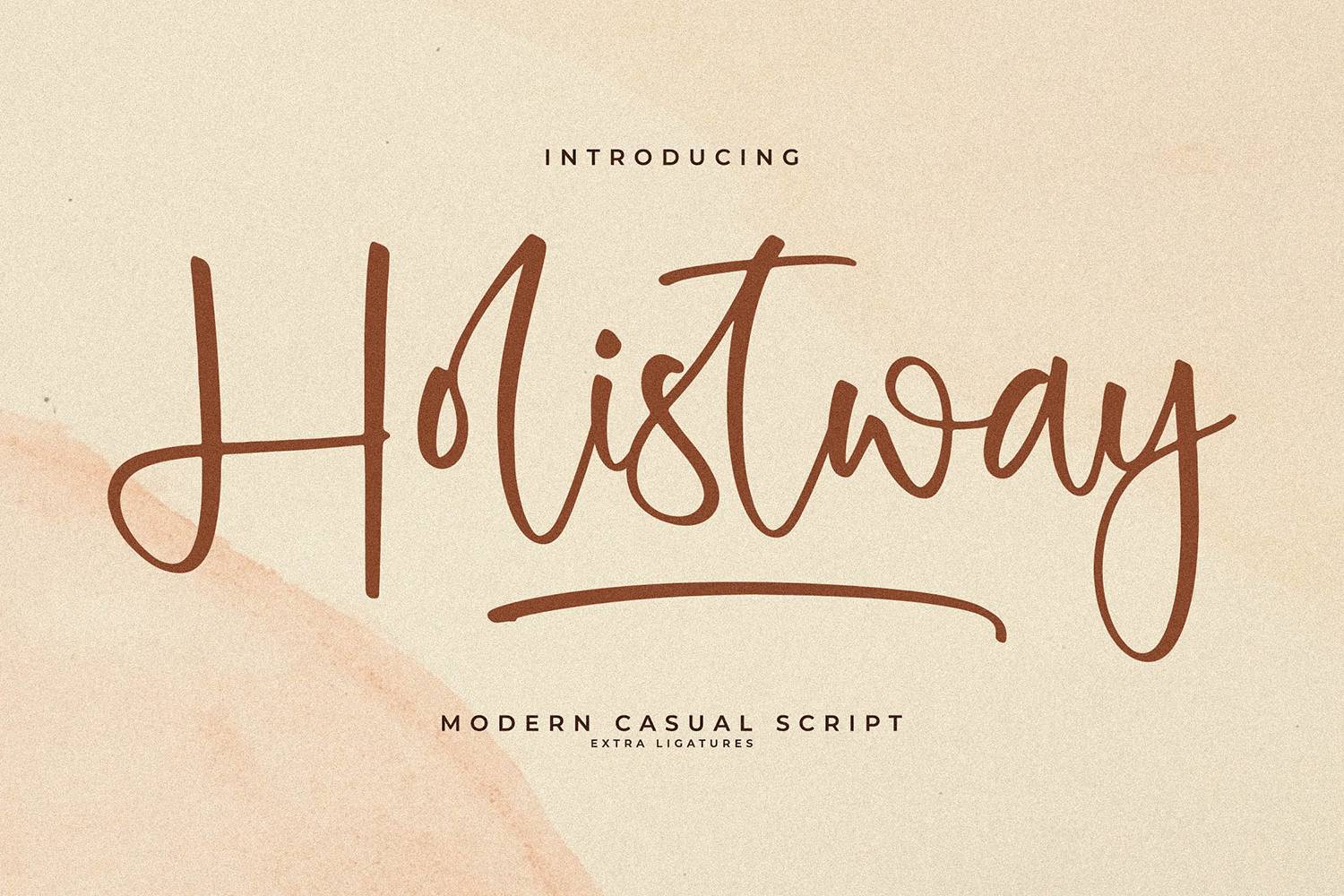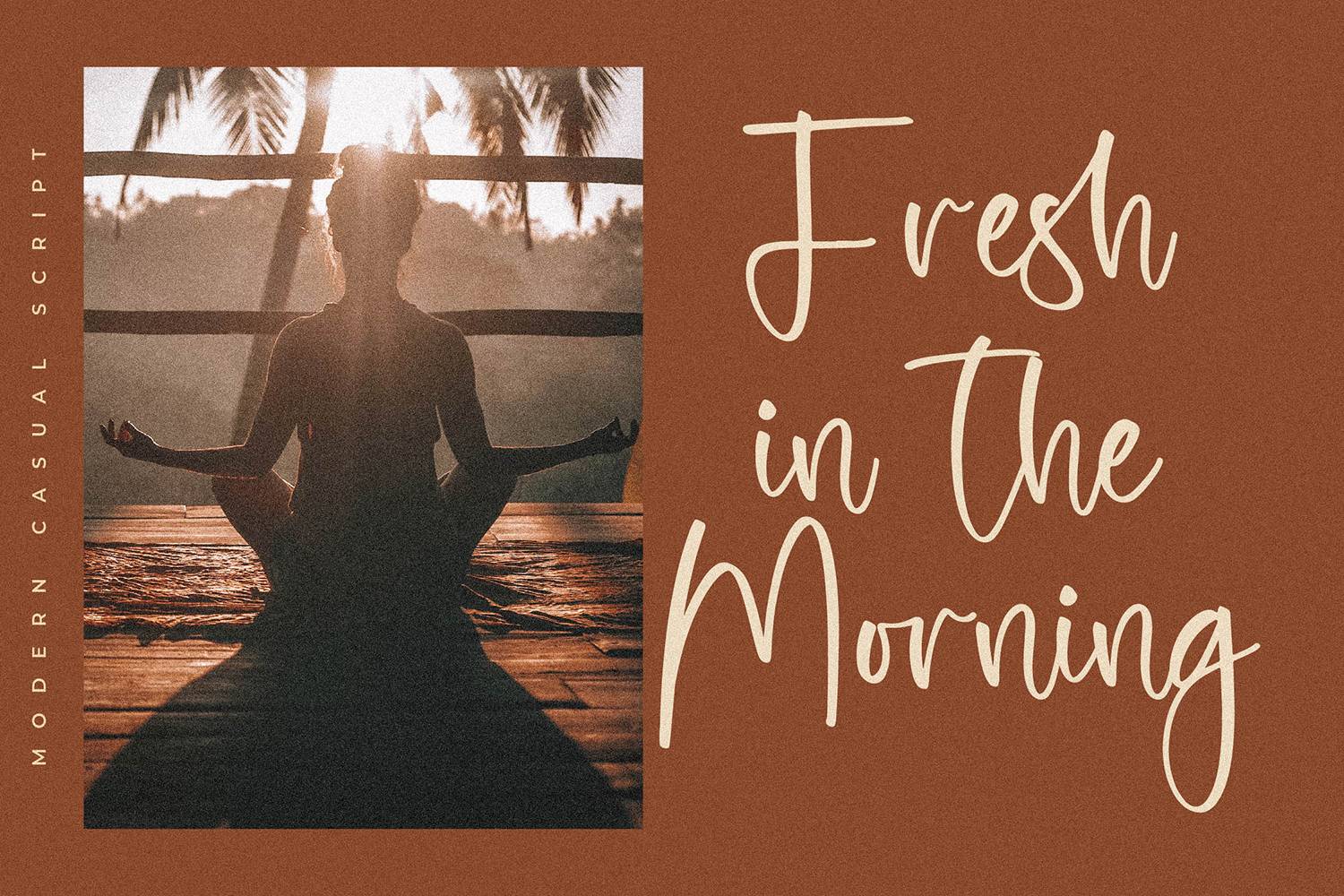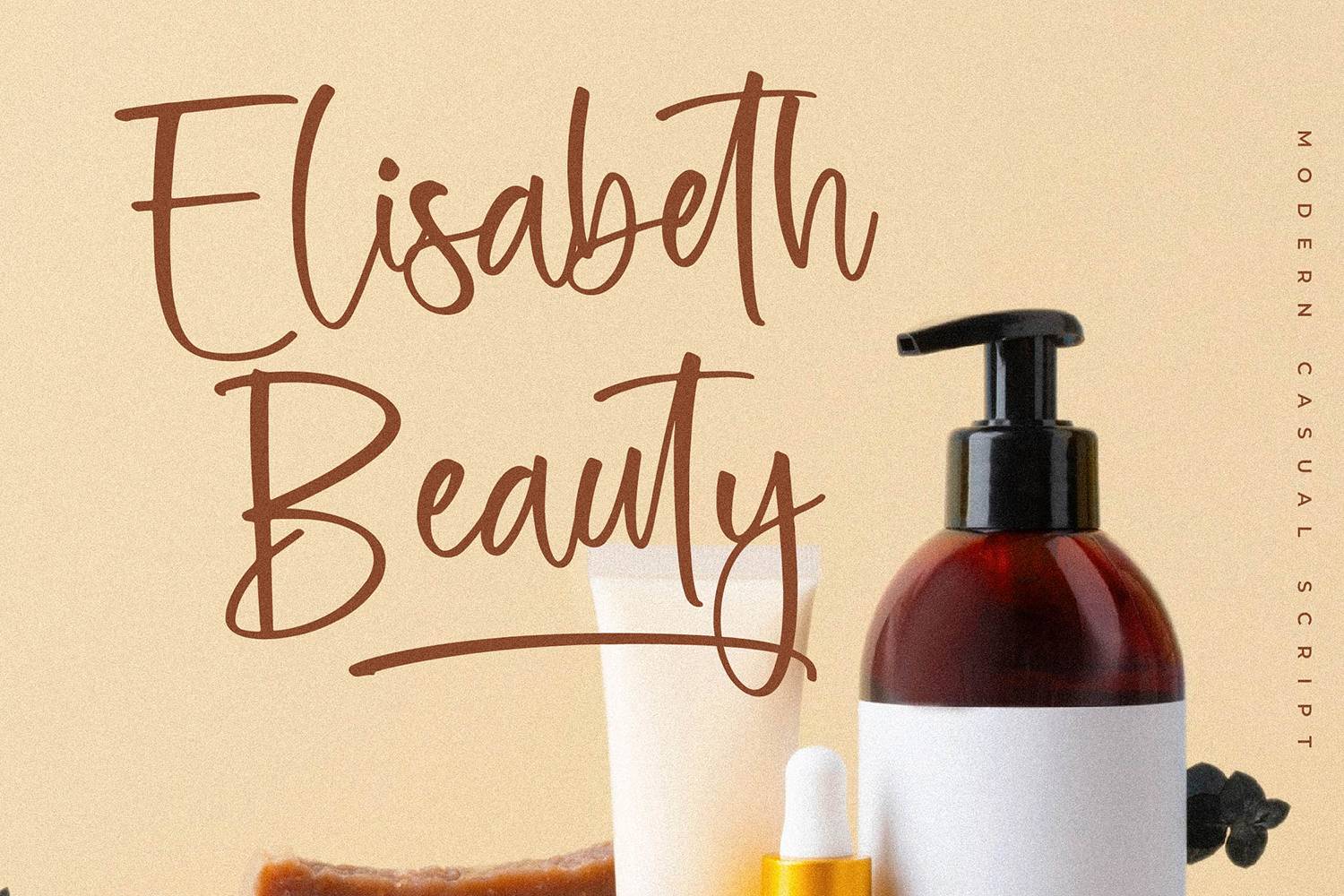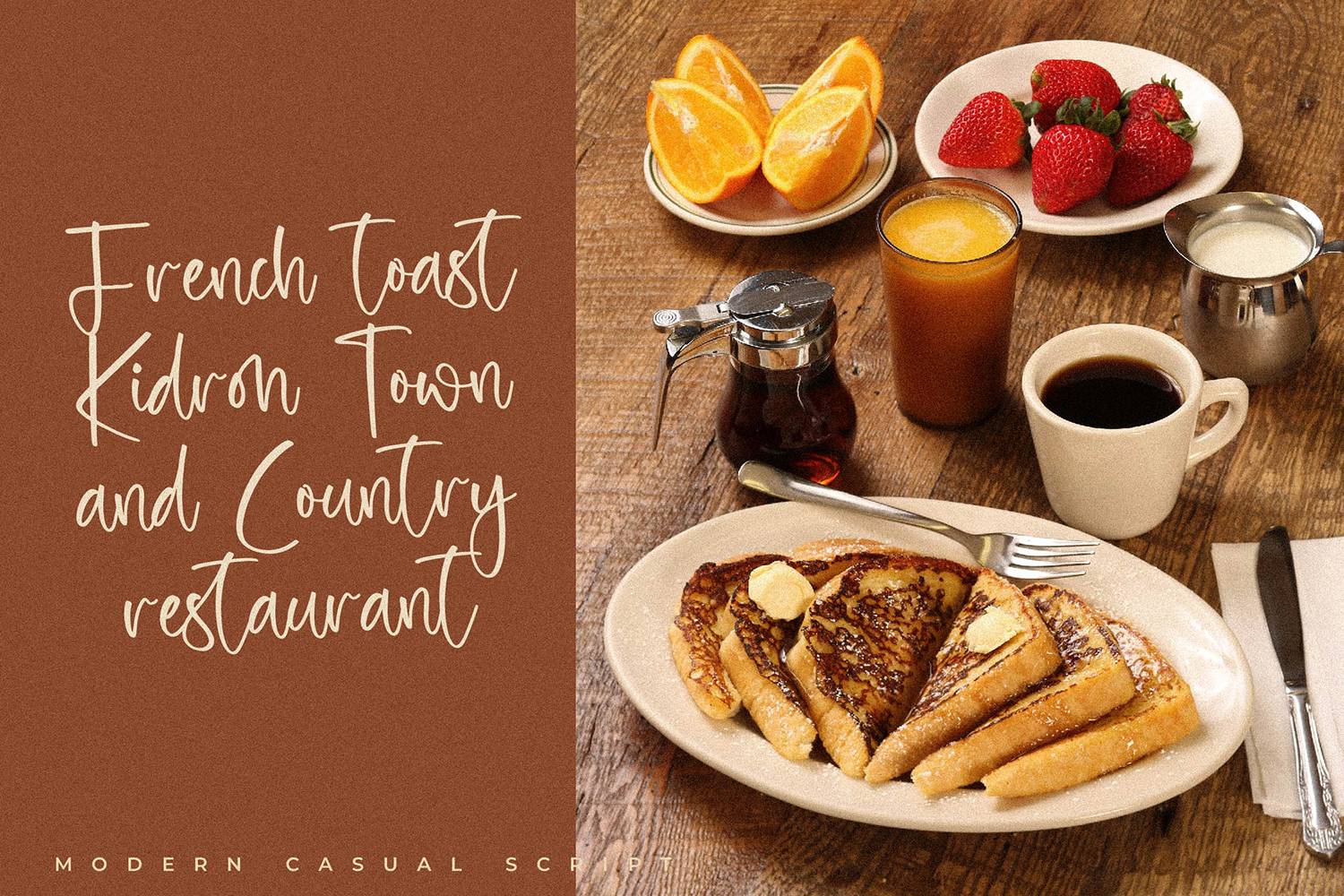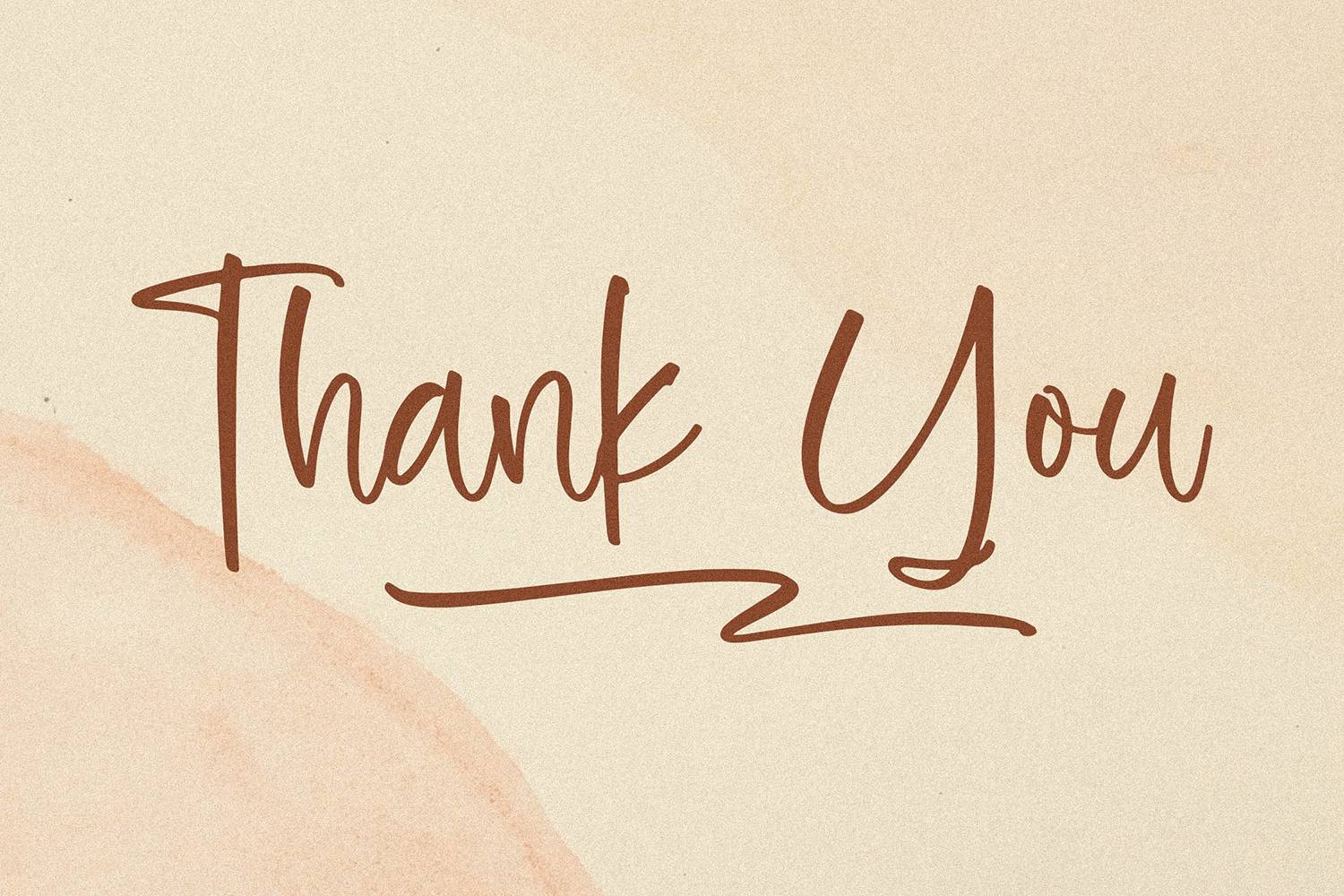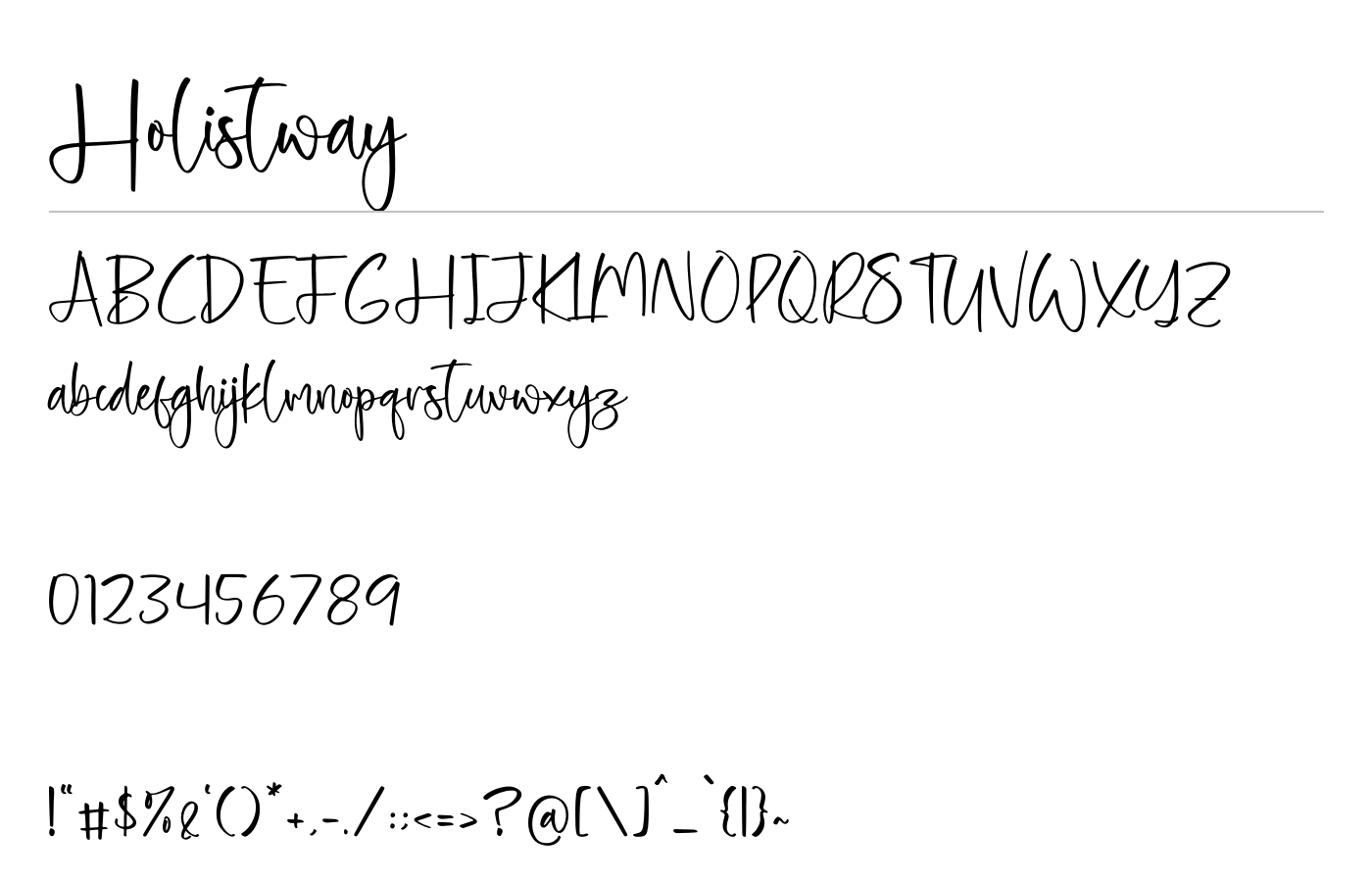
Holistway is a playful and modern handwritten font characterized by its tall, narrow letterforms and casual, flowing strokes. Its light weight and organic curves create a whimsical yet approachable feel, making it ideal for creative branding, invitations, and informal designs that seek a personal and friendly touch. This font works well in contexts where a natural, stylish handwritten look is desired without sacrificing readability.
Holistway Font
About Holistway Font